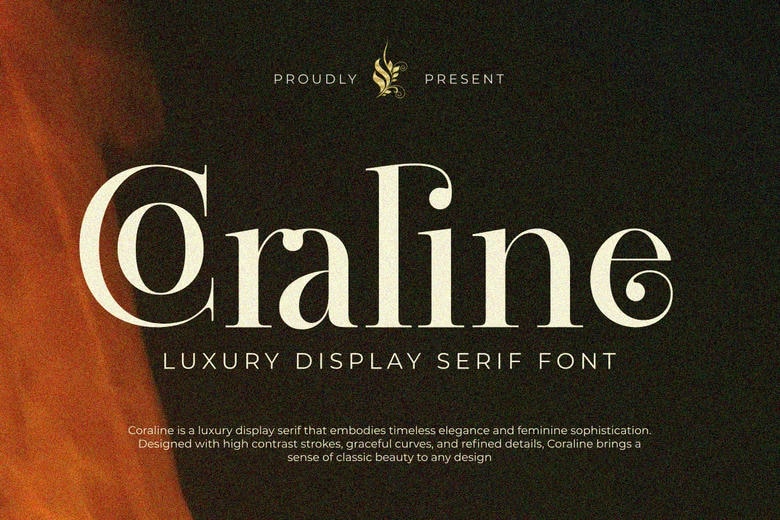
Coraline Font
Coraline is an elegant luxury display serif typeface that is timeless, richly feminine, and refined, and would be the perfect choice in high-end design. It is typologized by a heavy-contrast lines, idealized, elegant lines, and elegant details, particularly in the ornamental glyphs of the C and e.
This font adds a strong feeling of traditional beauty and luxuriousness to any project. Coraline is necessary to produce high-fashion branding, high-end mastheads in magazines, costly cosmetic brands, wedding stationery, and logotypes which demand a dramatic, artistic, and impeccably elegant appearance.
Coraline Serif Font